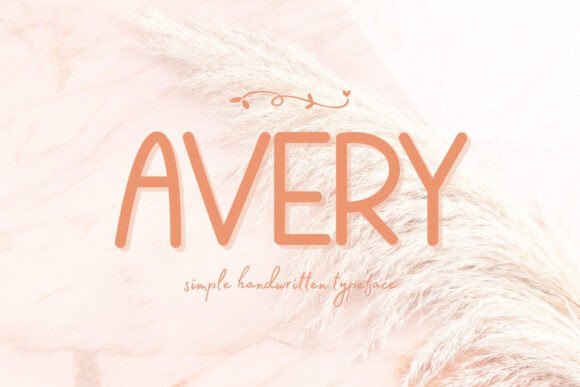
Avery Font: The Perfect Playful and Casual Handwritten Typeface for Creative Projects
In the world of typography, fonts play a crucial role in conveying the tone and personality of a brand or design. When it comes to creative projects, a font can make all the difference in capturing the right vibe and engaging your audience. This is where the Avery font comes in – a playful and casual handwritten typeface that is perfect for adding a personal and welcoming touch to your designs.
The Characteristics of Avery Font
The Avery font is designed to capture a modern and friendly vibe, making it ideal for a wide range of creative projects. Its clean and legible design ensures that it stands out across various platforms, from social media posts and greeting cards to logos and quotes. The font’s playful and casual nature makes it perfect for designs that require a personal touch, such as children’s books, inspiring messages, and personal branding.
Key Features of Avery Font
- Playful and Casual: The Avery font has a playful and casual feel to it, making it perfect for creative projects that require a personal touch.
- Modern and Friendly: The font captures a modern and friendly vibe, making it ideal for designs that require a welcoming and approachable tone.
- Clean and Legible: The Avery font has a clean and legible design, ensuring that it stands out across various platforms.
- Versatile: The font is versatile and can be used for a wide range of creative projects, from quotes and social media posts to logos and greeting cards.
Uses of Avery Font
The Avery font is perfect for a wide range of creative projects, including:
Perfect for:
- Quotes: The Avery font is ideal for quotes, adding a personal and inspiring touch to your messages.
- Social Media Posts: The font is perfect for social media posts, capturing a modern and friendly vibe that engages your audience.
- Greeting Cards: The Avery font is great for greeting cards, adding a personal and welcoming touch to your designs.
- Logos: The font can be used for logos, creating a unique and memorable brand identity.
- Children’s Designs: The Avery font is perfect for children’s designs, such as books and educational materials, creating an engaging and unique appeal.
The Benefits of Using Avery Font
The Avery font offers a range of benefits for creative professionals and designers, including:
Benefits of Using Avery Font
- Unique and Engaging: The Avery font creates a unique and engaging appeal, perfect for designs that require a personal touch.
- Versatile: The font is versatile and can be used for a wide range of creative projects.
- Clean and Legible: The Avery font has a clean and legible design, ensuring that it stands out across various platforms.
In conclusion, the Avery font is a playful and casual handwritten typeface that is perfect for creative projects. Its modern and friendly vibe, clean and legible design, and versatility make it ideal for a wide range of designs, from quotes and social media posts to logos and greeting cards. Whether you’re working on personal branding or commercial projects, the Avery font will give your designs a personal and welcoming touch. So why wait? Download the Avery font today and add charm to your creations!